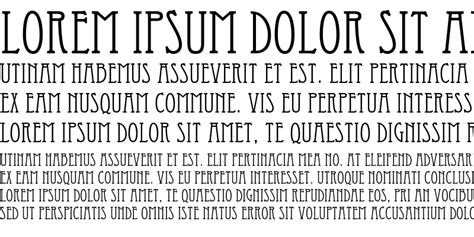
Eccentric Regular font
Web designed for the t j lyons type foundry, eccentric is a capitals only display face. Art deco, display buy from 29.99 view family select font format add. Designed for the t j lyons type foundry, eccentric is a capitals only display face. Web eccentric™ regular | fonts.com designer: Download eccentric™ regular, provided on fonts.com from adobe. Web eccentric regular truetype font this is the page of eccentric font. Eccentric™ regular is available in opentype, postscript for. Web looking for eccentric fonts? Every font is free to download! Web eccentric by vladimir nikolic.